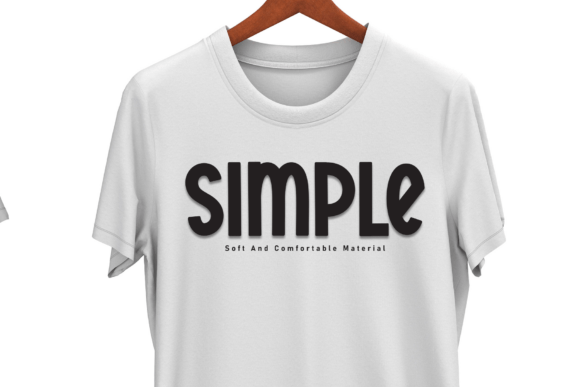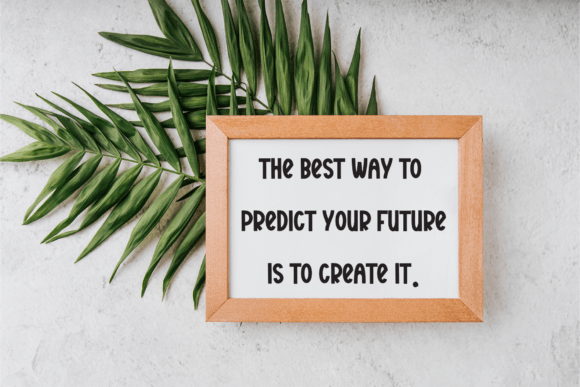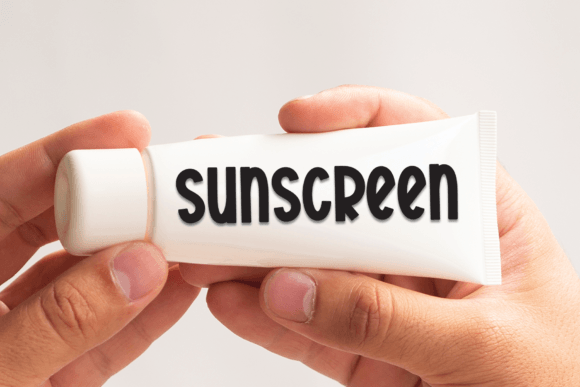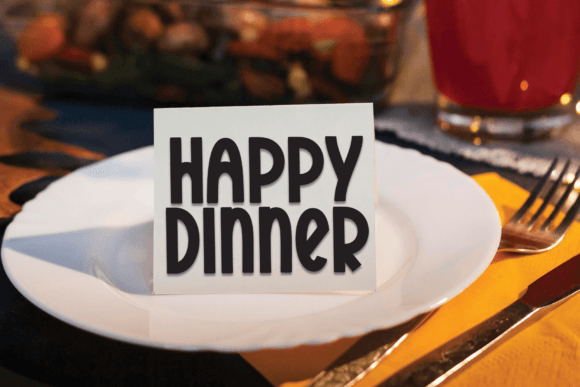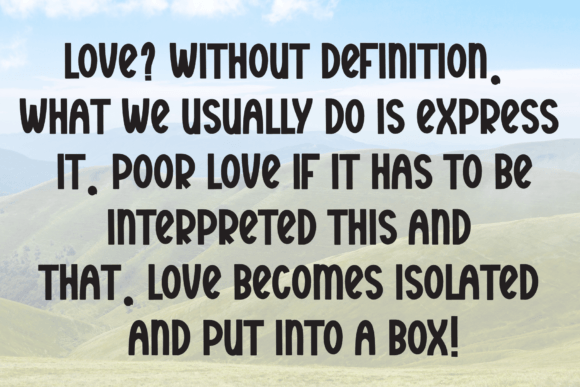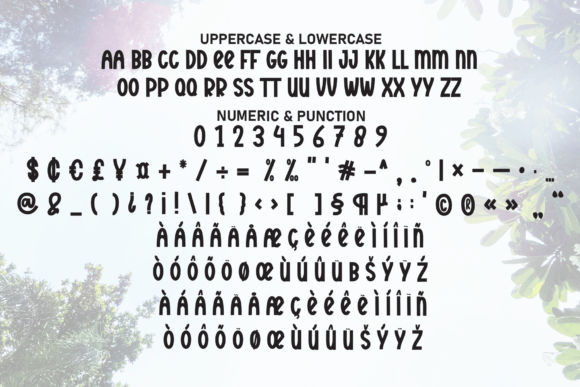
Welcome the New Year with a Font that’s Full of Joy
As you sit down to plan your wedding invitations or design a new greeting card, the creative possibilities can be overwhelming. But what if you had a font that captured the essence of a bright, sunny day, and the excitement of a new beginning? Enter Hello January Font, a charmingly whimsical handwritten display font that radiates joy and warmth, making it the perfect finishing touch for any design that needs a dash of fun.
This delightful font is not just a pretty face – it’s a valuable tool for designers who want to add a lively, playful touch to their creative projects. With its effortless charm, Hello January Font invites a sense of light-hearted enjoyment in every stroke, making it a must-have for any designer looking to add a personal touch to their work.
Hello January Font Key Features
- Font Family: Hello January
- Unique Characteristics: Features a modern, minimalist design with a unique blend of geometric and organic elements, making it suitable for a wide range of applications, from body text to display headings
Designer Review: Hello January Font
Overall, I think the Hello January Font is a solid addition to any designer’s toolkit. Here are some things that stood out to me:
- ✨ Curated, minimalist aesthetic – This font has a very specific, modern feel that’s perfect for brands looking to project a sleek, sophisticated image.
- ✨ Good legibility – Even at smaller font sizes, Hello January remains easy to read, which is crucial for any font.
Of course, no font is perfect, and Hello January has a few limitations:
- ⚠️ Limited font weight options – At present, the font only comes in a single weight, which may not be suitable for designs that require a lot of contrast.
- ⚠️ No italic or bold-italic options – If you need to italicize or bold-italicize text, you’ll need to find a separate font or get creative with the existing options.
Overall, I’d give Hello January a solid 4 out of 5 stars. While it’s not perfect, its strengths far outweigh its limitations, making it a great choice for designers looking for a clean, modern font to add some personality to their projects.
Hello January Font is perfect for creating welcoming and modern designs. Use it for:
- Brand logos and identity
- Marketing materials and social media posts
- Web design and e-commerce sites
- Invitations and event promotions
Remember to pair Hello January Font with other complementary fonts to create a unique and visually appealing design.
Alternatives to Hello January Font
Comparison to Hello January Font: Great Vibes Font is more elegant and refined, while Hello January Font has a more casual and handwritten feel.
Comparison to Hello January Font: Pacifico Font is more elegant and refined, while Hello January Font has a more casual and handwritten feel.
The Ostrich Sans Font is a modern, sans-serif font that is perfect for adding a touch of simplicity to your designs. It features clean lines and a friendly feel, making it ideal for body text, headings, and titles. Ostrich Sans Font is a great alternative to Hello January Font when you want a more minimalist and modern look.
For optimal readability, we recommend using a font size between 12-14 points and a line height of 1.2-1.5 times the font size. This will help ensure that the text is clear and easy to read, especially in digital applications.